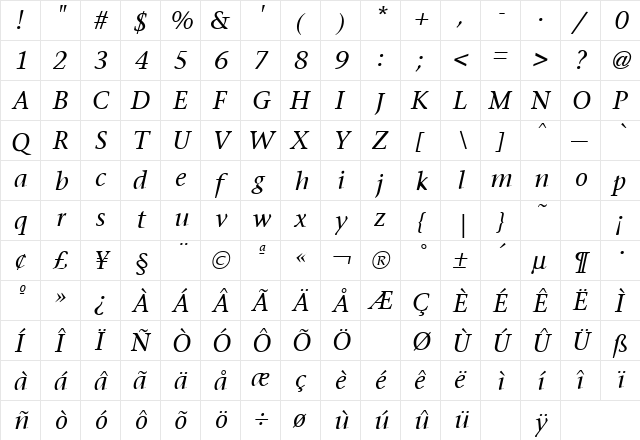
Stone Serif Italic
Design Context for Stone Serif Typeface
Stone Serif brings classic typographic sensibility to the table — its serifs and measured letterforms reflect centuries of print heritage. Its italic angle brings a sense of urgency and motion to the letterforms.